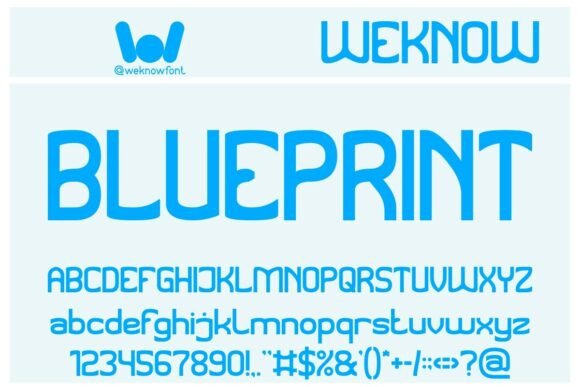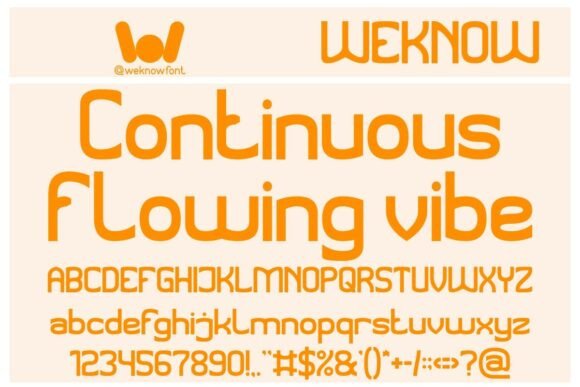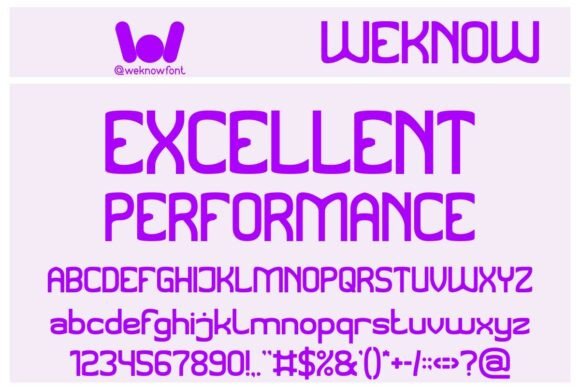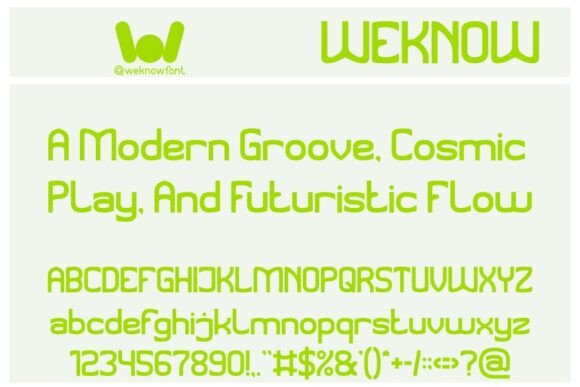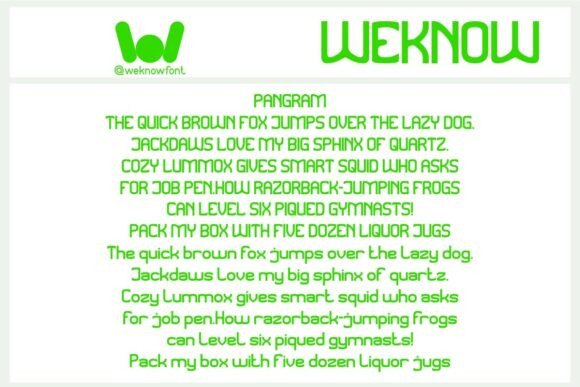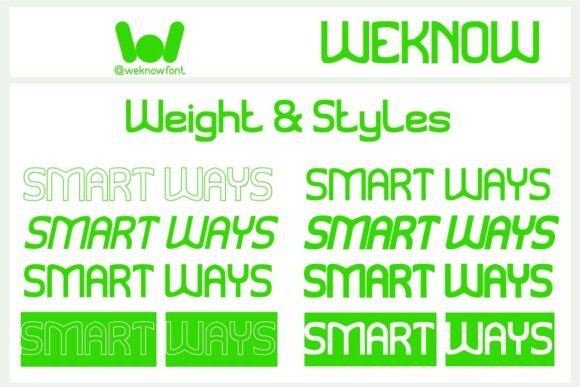
Introduction to Smart Ways Font
Smart Ways is an incredible amalgamation of simplicity and uniqueness—a multi-faceted gem in the realm of typography.
This sans-serif font flaunts flawless geometric outlines that are reminiscent of the future as much as hinting at the past, creating a bridge between times that’s reflected in its modern-retro vibe With a smooth flow that whispers elegance, it shapes itself as the perfect pick for logos, headlines, and brand identity building.
Key Features of Smart Ways Font
Why Choose Smart Ways Font?